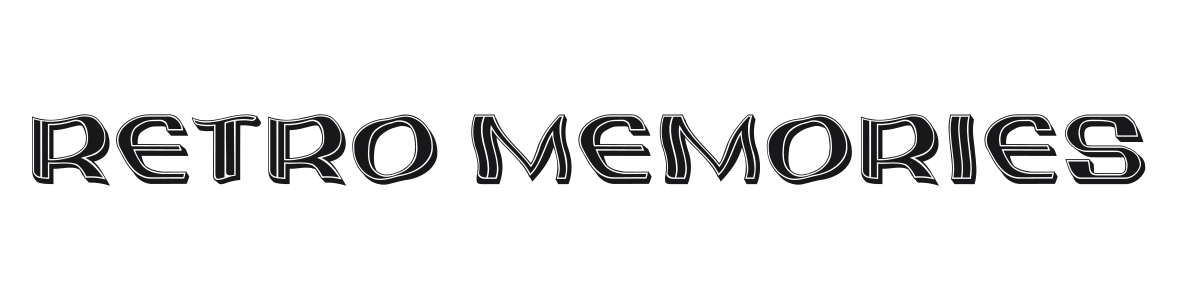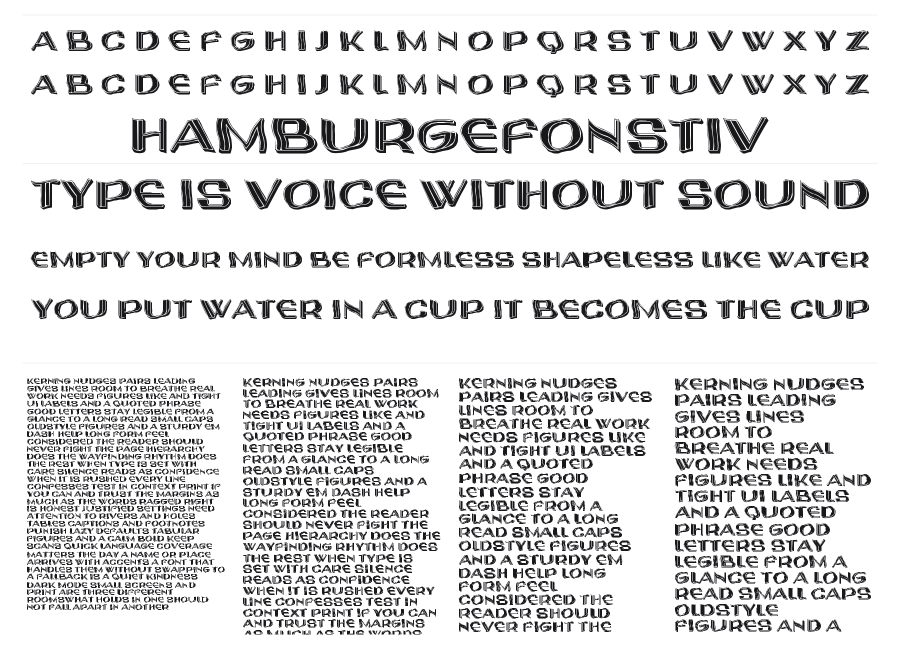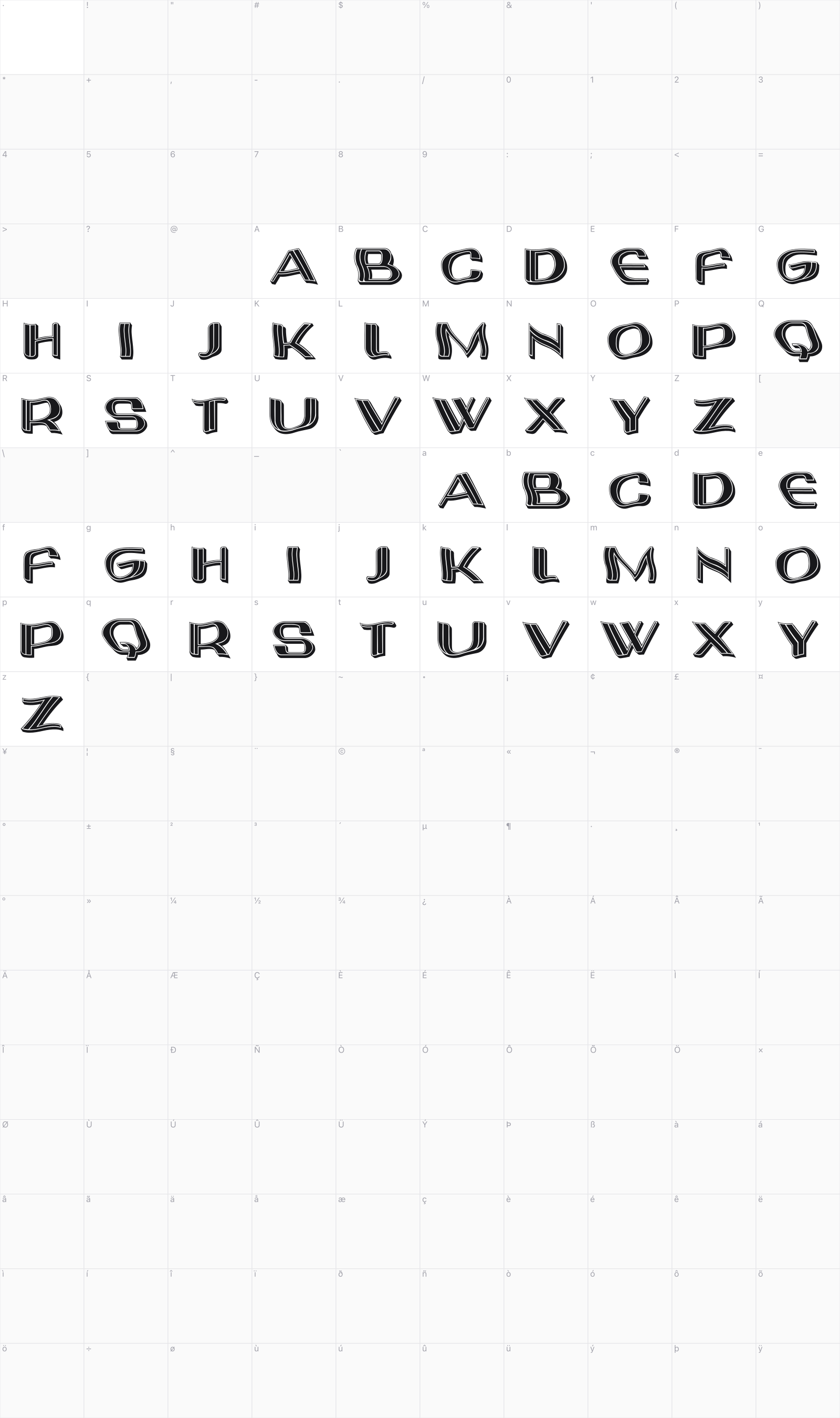
Retro Memories
Retro Memories is a bold display serif with a layered inline stripe and drop shadow effect that evokes mid-century American signage and Art Deco showmanship. The wide, heavyweight characters command attention at large sizes, with decorative inline details that give the design its vintage depth. It suits anything that needs a dose of nostalgic theatrics.